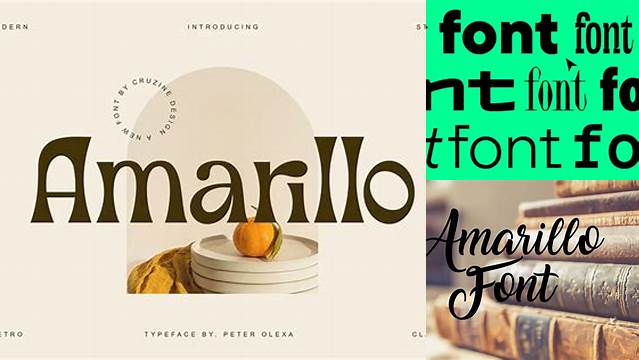
Amarillo Fonts: A Designer's Guide
Discovering the Charm of Amarillo Fonts
Hey there, design enthusiasts! Have you ever stumbled upon a font that just screams personality? That's the magic of Amarillo fonts! These typefaces, often characterized by their warm, inviting aesthetics, have been making waves in the design world. From their friendly curves to their bold statements, Amarillo fonts bring a unique flavor to any project. Whether you're a seasoned designer or just starting, understanding the nuances of Amarillo fonts can significantly elevate your creative work. Let's dive deep into what makes these fonts so special and how you can leverage their power. Amarillo fonts are known for their versatility, working well in both digital and print media. They provide a sense of approachability, which is perfect for projects aiming to connect with a broad audience. When you're looking for a font that exudes friendliness and warmth, Amarillo fonts are definitely worth considering. They're like the sunshine in your design, brightening up any project they touch. The best Amarillo fonts often feature a balance of legibility and style, making them suitable for headlines, body text, and everything in between. Think of them as the secret ingredient to a design that's both visually appealing and user-friendly. Now, let's embark on a journey to explore the different styles, best practices, and design ideas that will help you master the art of Amarillo fonts. We'll cover everything from the history and evolution of these fonts to their contemporary applications. Get ready to be inspired and transform your designs with the vibrant energy of Amarillo fonts!
The History and Evolution of Amarillo Font Styles
Let's rewind a bit and take a peek into the past of Amarillo fonts. You know, understanding the history of these fonts helps us appreciate their value even more. While the term 'Amarillo font' might not refer to a specific historical font family, the spirit it embodies is deeply rooted in design history. Think of the influence of classic, friendly typefaces that came before: these are the ancestors of what we consider Amarillo fonts today. Over time, designers have continued to innovate, creating new styles and variations inspired by the warmth and readability of these classic fonts. The evolution of Amarillo fonts tells a story of continuous adaptation and improvement. Designers have experimented with different weights, styles, and features to ensure that these fonts meet the ever-changing demands of design. The digital revolution played a huge role in how we perceive Amarillo fonts. With the advent of computers, creating, and sharing fonts became more accessible than ever before. This meant that designers could experiment freely, leading to a diverse range of Amarillo font styles. Today, you can find fonts that offer a modern twist on classic designs, such as enhanced readability and improved display characteristics. The modern Amarillo fonts reflect a fusion of tradition and innovation, appealing to a broad spectrum of design aesthetics. As the design world embraces inclusivity, Amarillo fonts have adapted to serve a wider range of purposes. Designers are now focusing on creating fonts that support different languages and character sets, ensuring accessibility for all users. It's not just about aesthetics; it's also about creating designs that are user-friendly and accessible for everyone. It's all about inclusivity, isn't it? From retro revivals to futuristic interpretations, Amarillo fonts have embraced a variety of aesthetic styles. Some fonts evoke a sense of nostalgia, while others aim for a bold, contemporary feel. The versatility of Amarillo fonts is a testament to their enduring appeal. In the next section, we'll look at some specific font families that embody this spirit.
Exploring Different Amarillo Font Families and Their Characteristics
Time to get to the good stuff: let's dive into some of the Amarillo font families that you'll want to have in your design arsenal. You'll find that each family brings its own unique flavor to the table. Knowing these will help you make the best choices for your projects. When we talk about Amarillo fonts, we are often looking at typefaces that are friendly, easy to read, and visually appealing. While the term might not define a specific type classification, it points to fonts with characteristics like rounded shapes, open counters, and a warm tone. First up, we have fonts that lean towards a classic, vintage vibe. These are great for projects that aim to evoke a sense of nostalgia. Think of posters, logos, and designs that want to create a sense of trust and familiarity. These fonts often have a timeless quality that makes them universally appealing. Then there are modern, clean Amarillo fonts. These fonts focus on clarity and simplicity, making them perfect for both digital and print media. These are the fonts you'd want for websites, apps, and corporate branding, where readability is key. You will often see these fonts in minimalist designs to add a touch of approachability. But it doesn't end there, folks! Playful and creative Amarillo fonts are also in the mix. These fonts embrace a more expressive approach, often with unique letterforms and embellishments. Ideal for projects that require a lot of personality, like children's books, event invitations, and creative branding. They add a splash of fun and make your designs pop! Finally, we have the versatile, all-rounder Amarillo fonts. These fonts combine elements from different styles, making them adaptable for many different projects. They are the workhorses of your font collection. They work well in headlines, body text, and everything in between. The best Amarillo fonts are defined by their versatility and their warm, friendly character. Let's not forget about the weight and style variations available within each family. Bold, italic, condensed, and extended versions give you additional design options. So you can fine-tune the appearance of the text in your projects. When selecting an Amarillo font, always consider the project's overall goal. What message are you trying to convey? What's the target audience? By answering these questions, you will be able to choose the Amarillo font that is right for you. Remember, each font has its own personality. So take some time to explore different font families.
Best Practices for Using Amarillo Fonts in Design Projects
Alright, let's chat about making the most of Amarillo fonts in your design projects. Because picking the right font is just the first step; you also need to know how to use them effectively! You want to choose your fonts carefully. Here's a cheat sheet to guide you.
First, consider readability. This is especially important for body text. Choose fonts with clear letterforms and open counters. Remember that you want your audience to be able to read your work, and that the design is not only aesthetically pleasing. Test out different font sizes and line spacing to find the sweet spot for optimal reading comfort. The goal is to make the text inviting and easy to follow. When we talk about Amarillo fonts, you will typically find these fonts have great readability. The goal is to combine visual appeal with practical functionality. Make sure to choose fonts that are easy to read. Next up, consider your project's purpose. What are you trying to communicate? Is it a playful, friendly message? Or is it a more serious, formal one? Choose a font that matches your project's tone. For instance, a rounded, friendly font will be perfect for a children's book. However, a more formal font may be appropriate for a business proposal. So choose the right font based on the project you're working on! When it comes to font pairing, you can use Amarillo fonts creatively. The contrast is important, so find a font that complements the Amarillo font and doesn't compete with it. You can pair a friendly font with a more structured one for a balanced look, or combine different weights and styles within the same family for visual interest. Experiment to discover what works best for your design. Hierarchy and emphasis are key to making your design easy to understand. Use different sizes, weights, and styles within your chosen Amarillo font to create a visual hierarchy. Making sure that your main headlines stand out and guide your audience. The use of variations of the same font family adds visual interest and clarity to your design. Let's not forget about accessibility. Always ensure that your font choices are accessible to all users. Consider the contrast between the text and the background. So that the text is legible for people with visual impairments. Testing your design across different devices and screen sizes ensures that it looks great everywhere. Use Amarillo fonts wisely to boost your projects and to add the best user experience.
Combining Amarillo Fonts with Other Design Elements
Time to get creative and learn how to effectively combine Amarillo fonts with other design elements. Think about how to add even more charm to your designs. Pairing fonts with the right colors, images, and layouts. Here's how to create cohesive and visually stunning designs. When it comes to color palettes, Amarillo fonts often work well with a range of colors. To create a warm and friendly feel, pair them with soft, earthy tones, such as cream, light brown, and pastel shades. For a more vibrant and modern look, consider contrasting them with bold, bright colors, such as teal, coral, or bright yellow. The key is to choose a palette that compliments the font's characteristics and enhances the overall aesthetic of your project. The use of images and graphics can boost your designs even further. If you are using an Amarillo font, consider using images that have a warm, inviting tone. Whether you are using photography or illustrations, make sure that the visual style is consistent with the font's personality. Using this approach will make your design cohesive and visually appealing. Think about the layouts that best fit your design. When it comes to layout and composition, Amarillo fonts can be used in various ways. They can be used to create a sense of balance. Use a clear and organized layout to enhance readability. Incorporate negative space, to provide a visual break and to direct the reader's attention. The combination of text and images can create a visually stunning design, but make sure that you have a great layout. Remember to combine different elements to elevate the overall effect. When it comes to design consistency, use Amarillo fonts consistently across all your design materials. If you have a logo, use that font throughout the design. Consistency is important. By doing this, you can establish brand recognition. This also makes your design easily recognizable. Following these principles will help you create designs that are visually appealing, easy to read, and memorable. Play with these elements and enjoy the process.
Design Ideas and Inspiration for Amarillo Fonts
Let's dive into some real-world examples and creative ideas for using Amarillo fonts. Here are some design ideas that will inspire you to create unique and engaging projects. These fonts are perfect for giving a fresh, inviting look to your work. First up, let's look at how Amarillo fonts can transform branding and logo designs. These fonts work particularly well for brands wanting to communicate a sense of approachability and friendliness. Think of coffee shops, children's brands, and creative agencies. Use them to create logos, and style guides. When using them for your brand, it's important that you establish your visual identity. Amarillo fonts can be used to make your brand stand out. Then, website design becomes much easier. Amarillo fonts can create a user-friendly and visually pleasing website experience. Because they're known for their readability, they are perfect for headings, body text, and calls to action. Remember, choosing the right font will contribute to a better experience. The goal is to create a website that is user-friendly and visually appealing. Now, let's talk about print media! Think about invitations, posters, and flyers, where Amarillo fonts can shine. They can be used for headings, slogans, and body text. The goal is to create print materials that are visually appealing and easy to read. The great thing is that Amarillo fonts have a high level of flexibility. It's all about making a great impression! Social media and digital graphics will have a huge impact with these fonts. Amarillo fonts are perfect for creating social media posts and other marketing materials. Use them for quotes, headlines, and captions. They are great for creating engaging, user-friendly content. From quotes to eye-catching ads, the possibilities are endless! Typography art and quotes are great ways to display these fonts. Experiment with different font weights, sizes, and styles to create stunning artwork. They add a personal touch to your designs, perfect for displaying quotes, and messages. Use them to create a creative composition that captures the eye. Each of these applications highlights the versatility and appeal of Amarillo fonts. By taking inspiration from these examples, you can use these fonts to create some really cool designs!
The Future of Amarillo Fonts: Trends and Predictions
Let's gaze into the crystal ball and discuss the future of Amarillo fonts. The design world is always evolving. Here are some of the exciting trends and predictions for Amarillo fonts. As digital design continues to be important, expect to see more Amarillo fonts optimized for screens. Designers will continue to focus on enhancing readability and user experience across different devices. The goal is to deliver a seamless experience. The trends will move forward, as tech will have a huge influence. Expect to see more variable fonts. These fonts allow designers to fine-tune weights and styles. They will offer even greater flexibility and customization options. With the demand for more accessibility, expect to see an increase in Amarillo fonts that support different languages. The goal is to ensure that designs are inclusive and user-friendly. The use of these fonts will continue to evolve. The best part is that they work in various designs! The lines between the different types of Amarillo fonts will continue to blur. You'll see more new and creative styles. This will result in a dynamic and evolving landscape. As AI technology advances, there will be new tools to create and manage fonts. This includes AI-powered font generators that can customize fonts to meet the unique needs of designers. These developments will lead to more innovation. The goal is to make these fonts even more accessible. In the future, Amarillo fonts will continue to evolve. The future of design is bright!
Conclusion: Embrace the Warmth of Amarillo Fonts
Alright, folks, we've come to the end of our exploration of Amarillo fonts. Hopefully, you now have a great understanding of the impact these fonts can have on your designs. We've gone over the history, best practices, and their impact on the design world. Amarillo fonts are more than just typefaces; they're tools for bringing warmth and personality to any project. From logos to websites, the versatility of Amarillo fonts makes them an essential asset. The core of what we've discussed is how you can use these fonts to enhance your creativity. With all the information that we've covered, you'll be able to make better choices. Keep experimenting with new fonts and let your creativity shine. Happy designing!